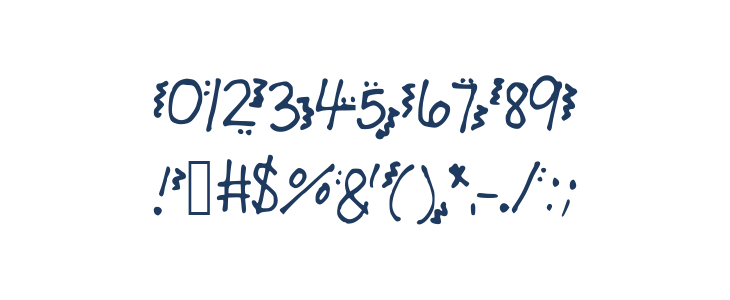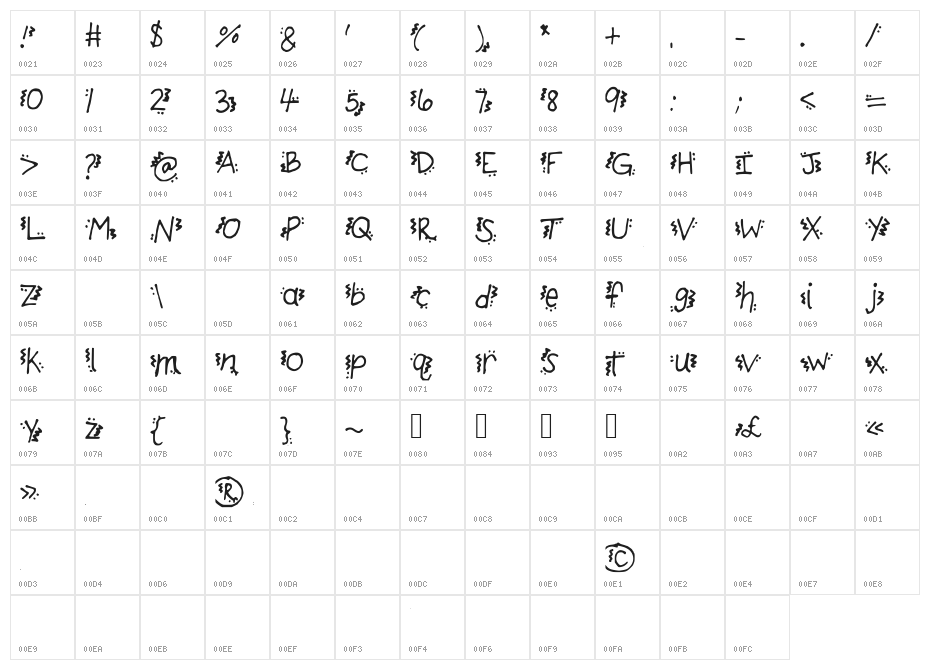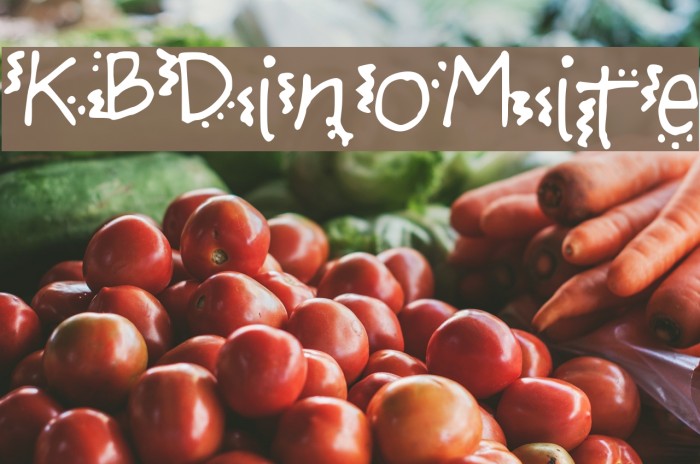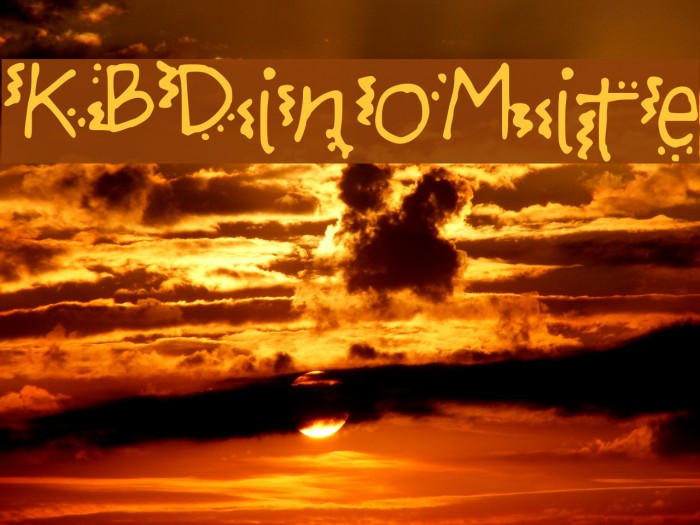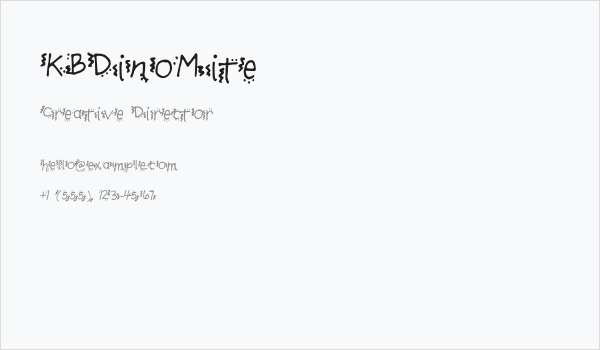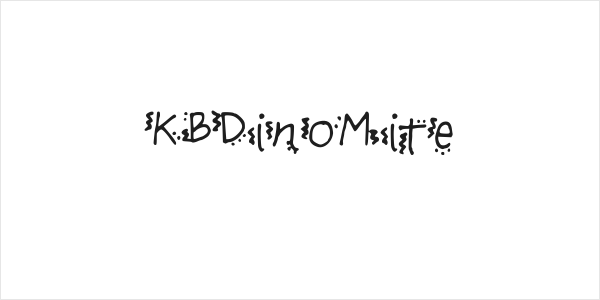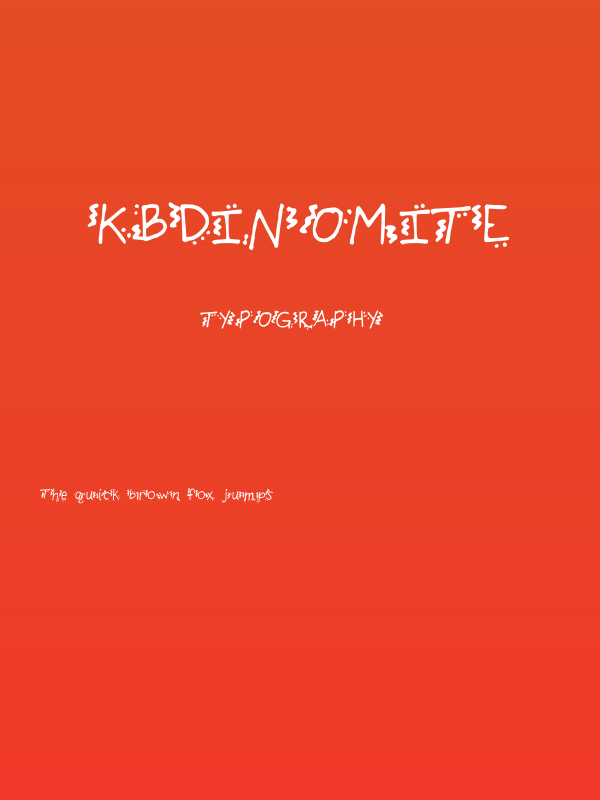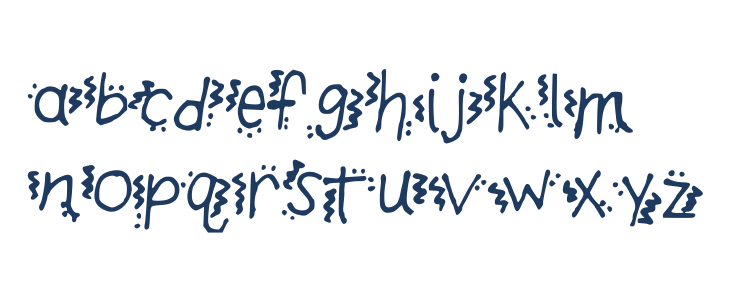
KBDinoMite Font
KBDinoMite Description
This playful and whimsical font features a unique design with dinosaur-inspired elements. Each character is adorned with small, irregular shapes resembling scales or spikes, giving it a fun and adventurous feel. The letters are slightly irregular in shape, adding to the playful aesthetic. This font captures a sense of youthful excitement and creativity, making it ideal for projects that aim to engage a younger audience or evoke a sense of fun and imagination. The overall appearance is bold and eye-catching, ensuring that any text set in this font will stand out.
| Proposed Projects | Ideal for children's books, educational materials, playful branding, and themed party invitations. |